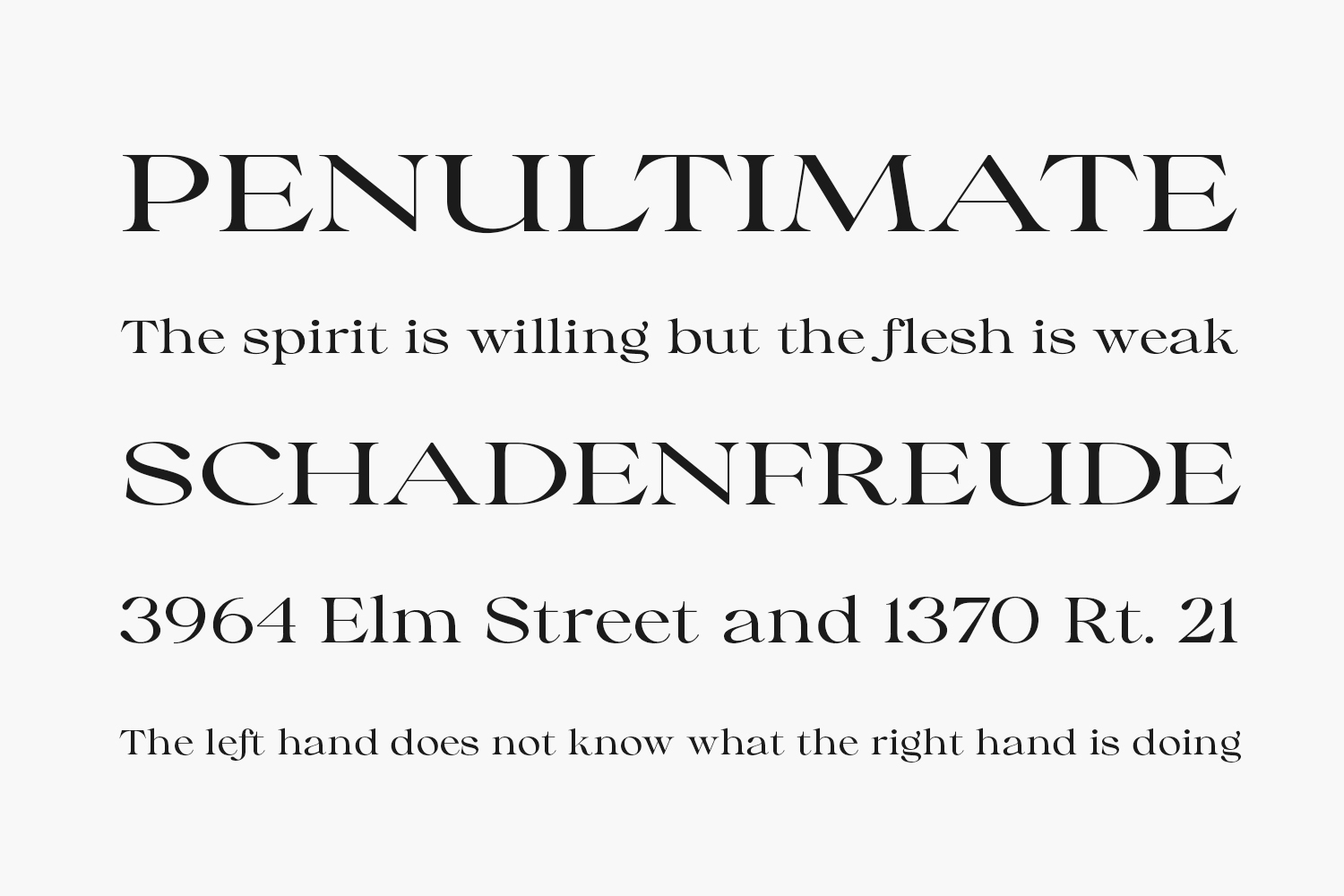
Collingar Free Font is a classic and elegant serif font. It is PUA encoded, which means that you can access all of the glyphs and swashes with ease! This font was particularly crafted for those who need a beautiful and refreshing look to their designs. Collingar Free Font was designed by Saridezra and is free for personal use only. Please purchase the full version for commercial use.